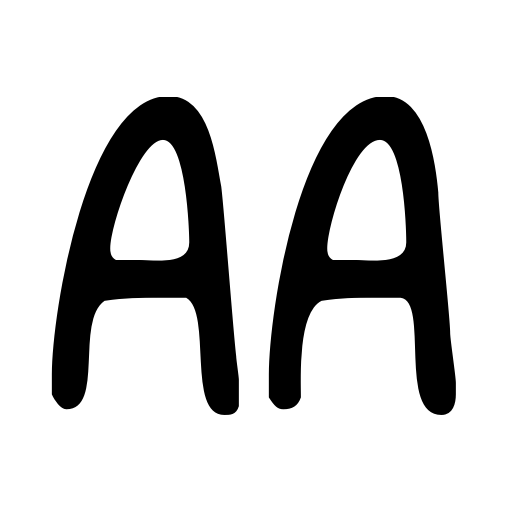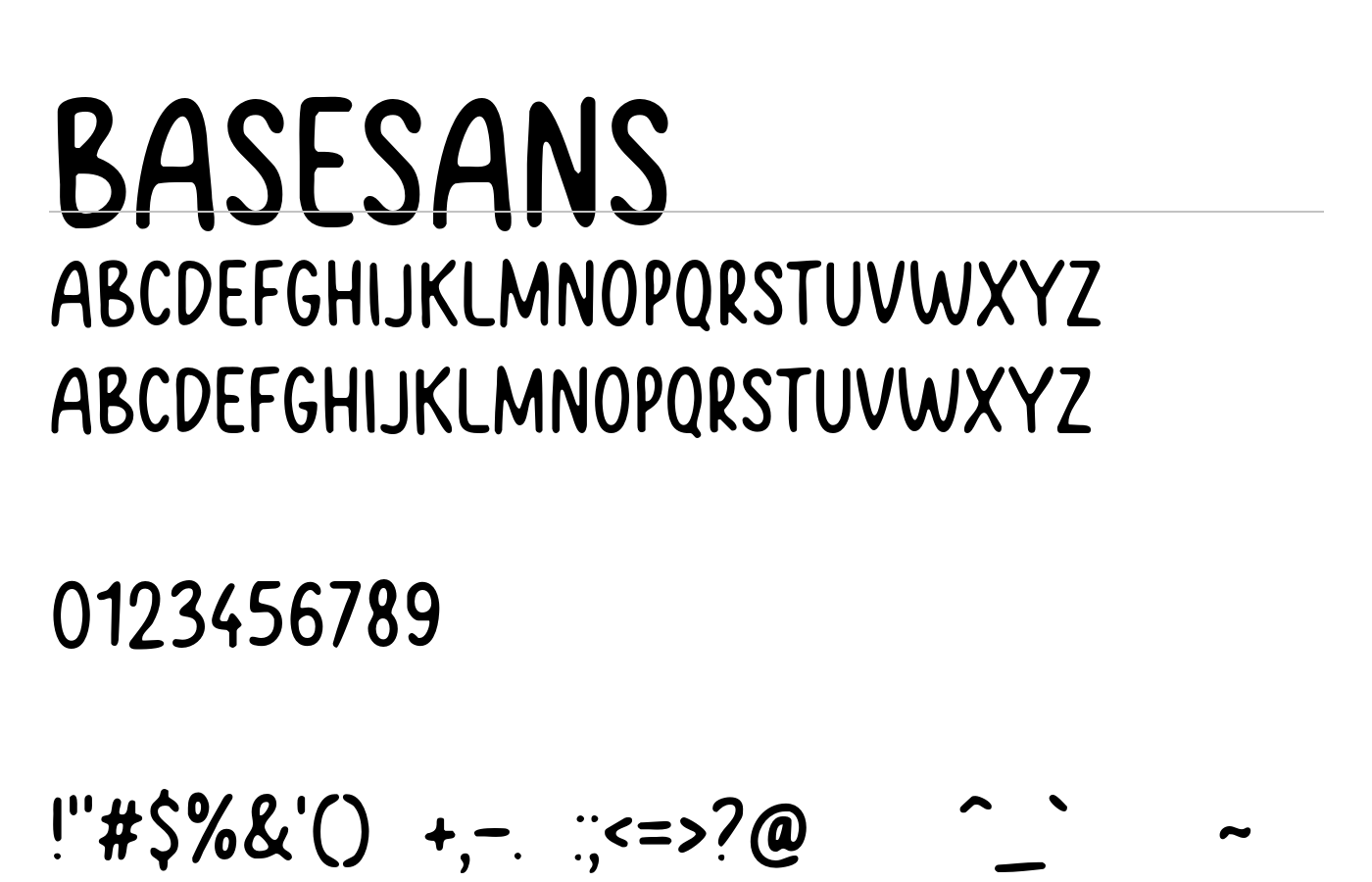
Basesans is a casual, hand-drawn sans serif font with a friendly and approachable feel. Its irregular, slightly rounded letterforms give it a playful, informal character, making it perfect for projects that want to convey warmth and personality. This font works well in creative branding, children's materials, and any design needing a fun, human touch.
Basesans Font
About Basesans Font